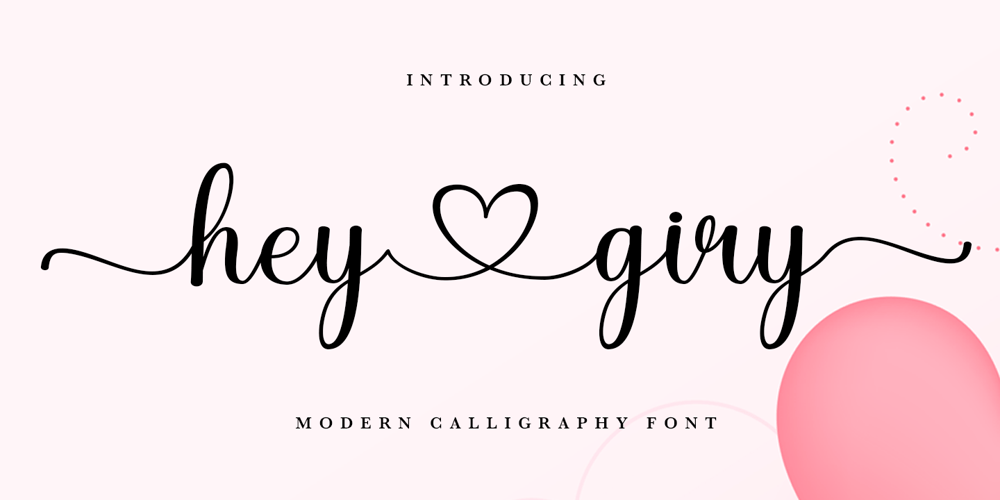
Hey Giry Script
Hey Giry Script font
Hey Giry Script Font Family was designed by Zaki Muhammad and published by madjack.font. Hey Giry Script contains 1 styles and family package options. Hey Girl Script is a modern script font that features a classic and elegant touch.Hey Girl Script is attractive because it is sleek, clean, feminine, sensual, glamorous, simple and very easy to read, thanks to its many luxurious lettering joints. I also offer a decent number of stylistic alternatives for some of the letters. Classic style is very suitable to be applied in various formal forms such as invitations, labels, restaurant menus, logos, fashion, make up, stationery, novels, magazines, books, greeting/wedding cards, packaging, labels or all kinds of advertising purposes. . . . . .need help or have questions let me know. I’m happy to help.Thank you.